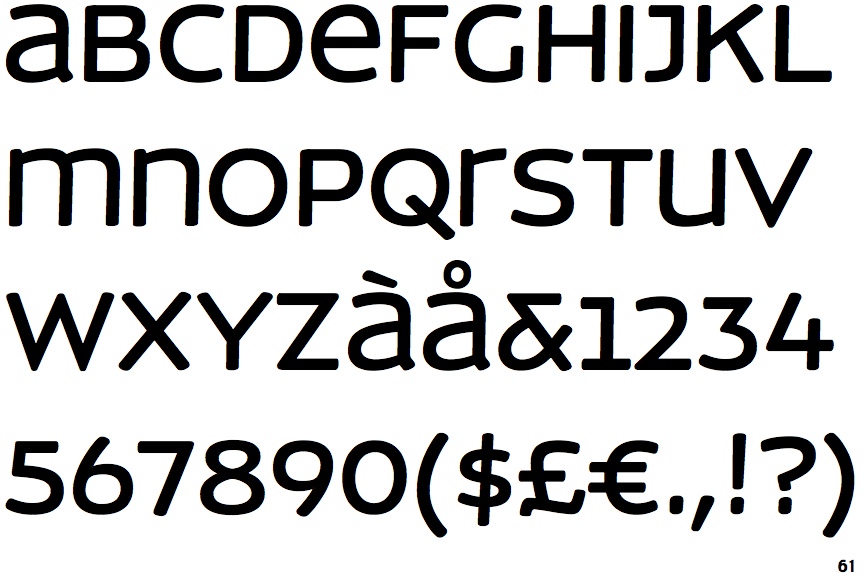
Gasket Unicase Font
Gasket Unicase Font is perfect for industrial machinery branding, automotive service marketing, mechanical engineering presentations, construction equipment packaging, manufacturing company logos, technical documentation design, heavy industry signage, and precision parts manufacturing. This robust typeface excels in applications where industrial strength and mechanical precision are essential for creating authoritative and reliable brand experiences that celebrate engineering excellence.
What makes Gasket Unicase Font truly exciting is its powerful embodiment of mechanical precision and industrial reliability that captures the essential function of gaskets in sealing systems and the unwavering dependability of engineered components. The font features uniform, mechanical letterforms with industrial character details and systematic construction that mirror the precise tolerances of manufacturing and the reliable performance of mechanical systems. Its industrial personality and mechanical character create an immediate sense of engineering competence and manufacturing quality that resonates with audiences seeking dependable industrial solutions and precision-engineered products. The typeface's mechanical heritage and industrial appeal make it perfect for brands wanting to convey reliability, precision, and connection to the essential world of industrial manufacturing and mechanical engineering.
The Gasket Unicase Font family includes consistent unicase styling with mechanical variations, complemented by industrial alternates and engineering-inspired decorative elements. The font offers comprehensive character sets with technical symbols, mechanical ligatures, and industrial styling details that enhance its authoritative aesthetic. Additional graphic elements including mechanical patterns, industrial motifs, engineering ornaments, and technical flourishes provide designers with complete branding tools rooted in manufacturing tradition and mechanical excellence culture.